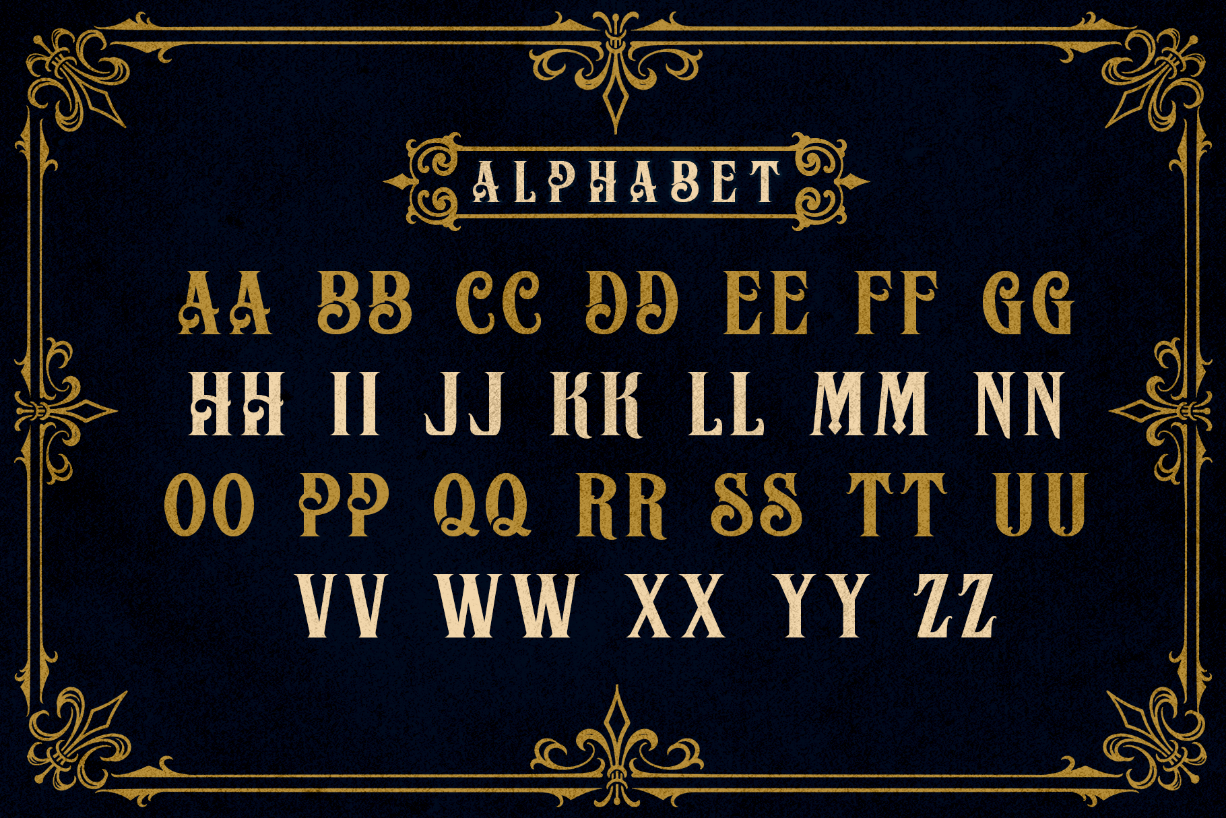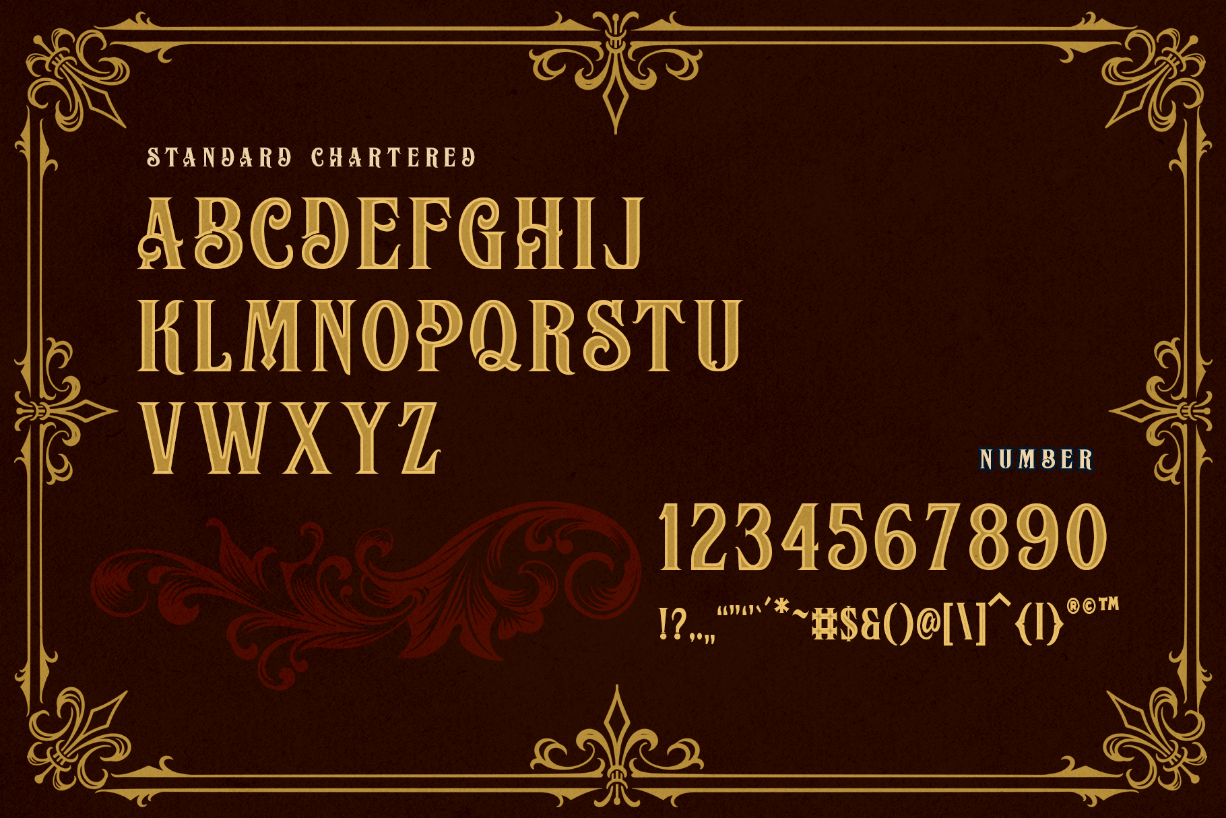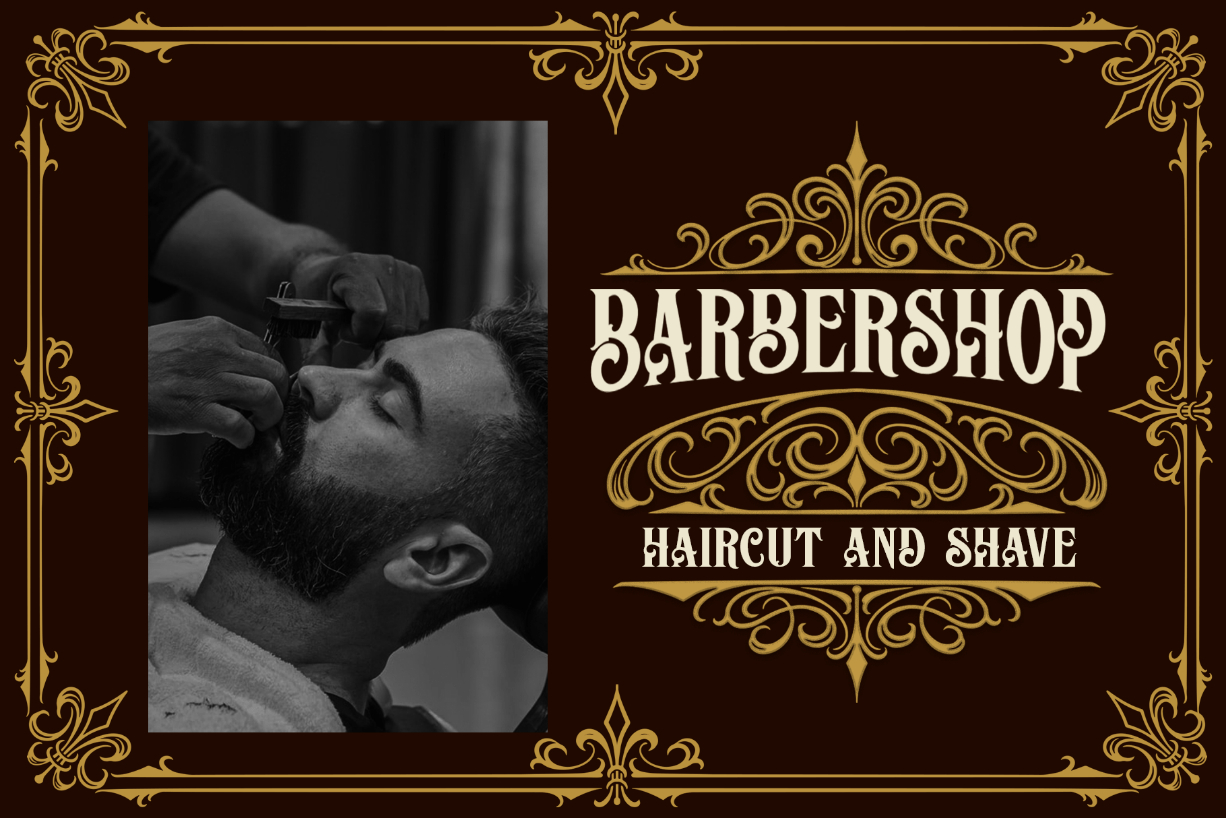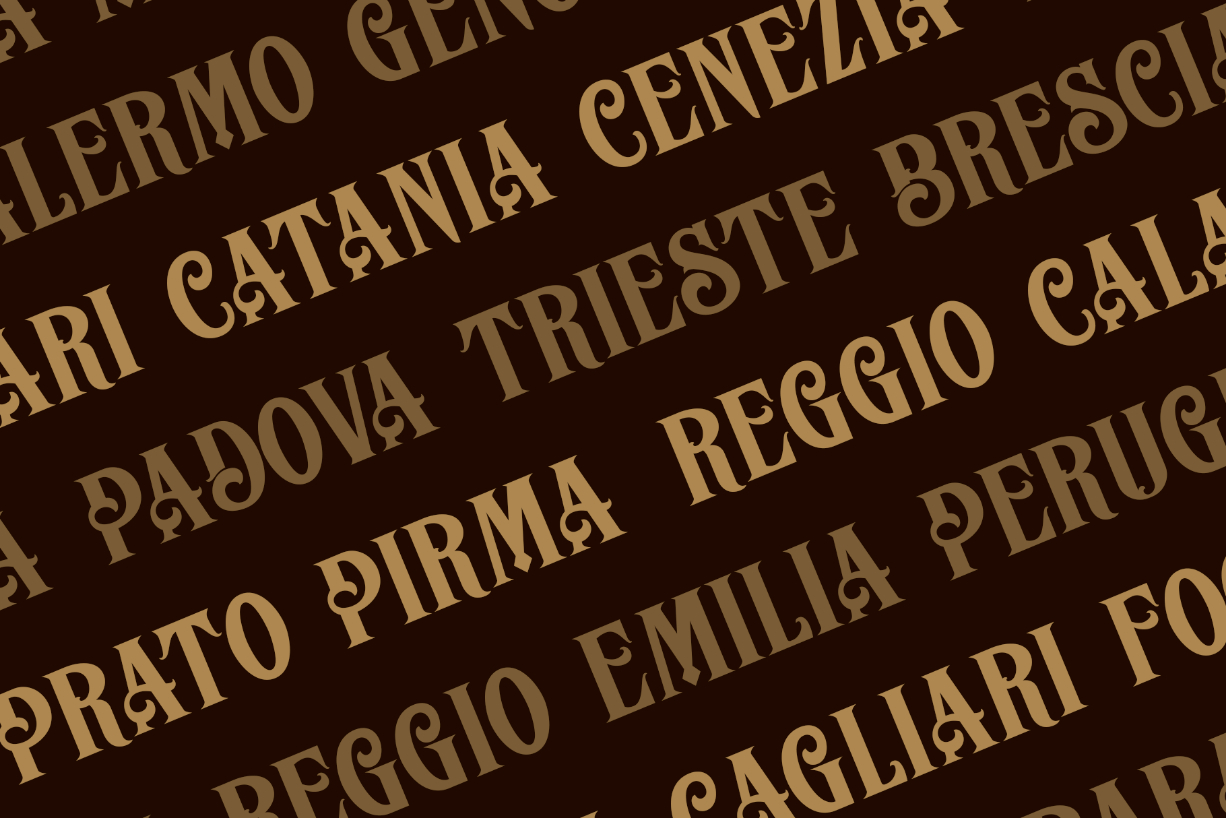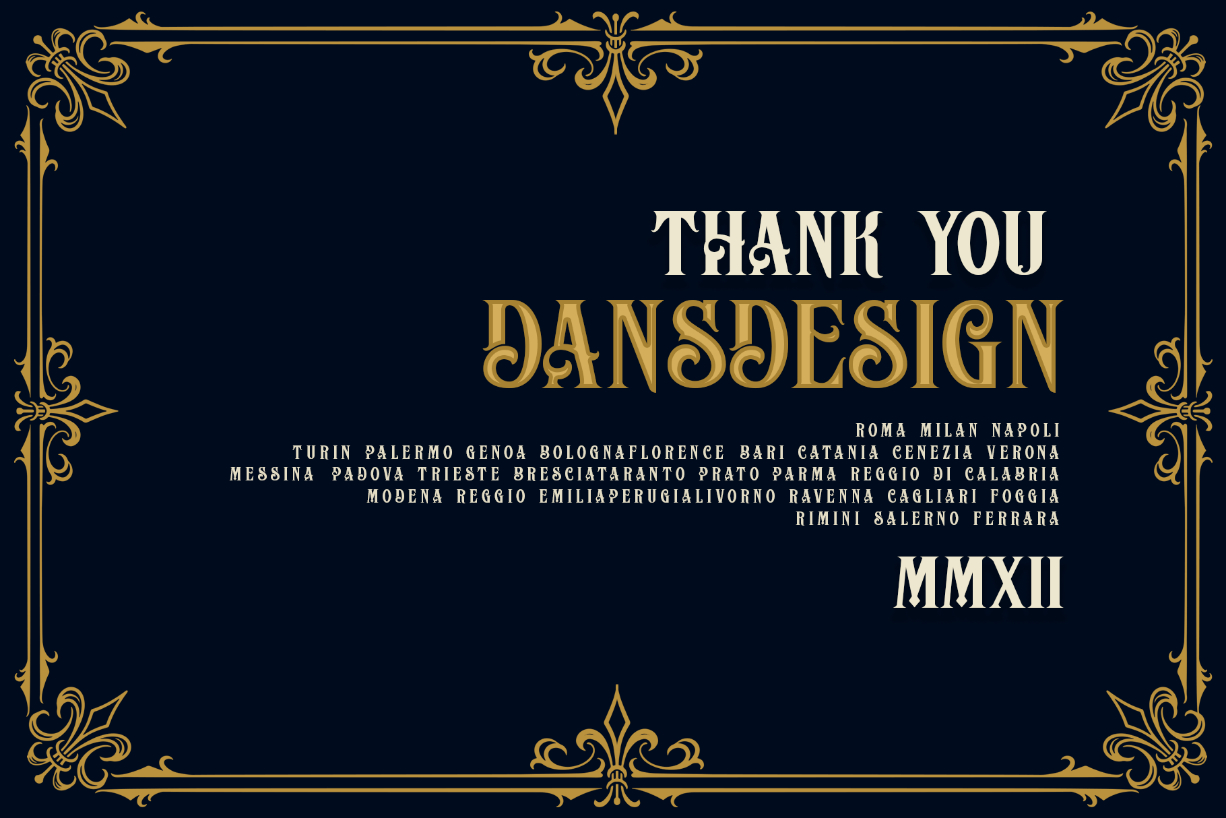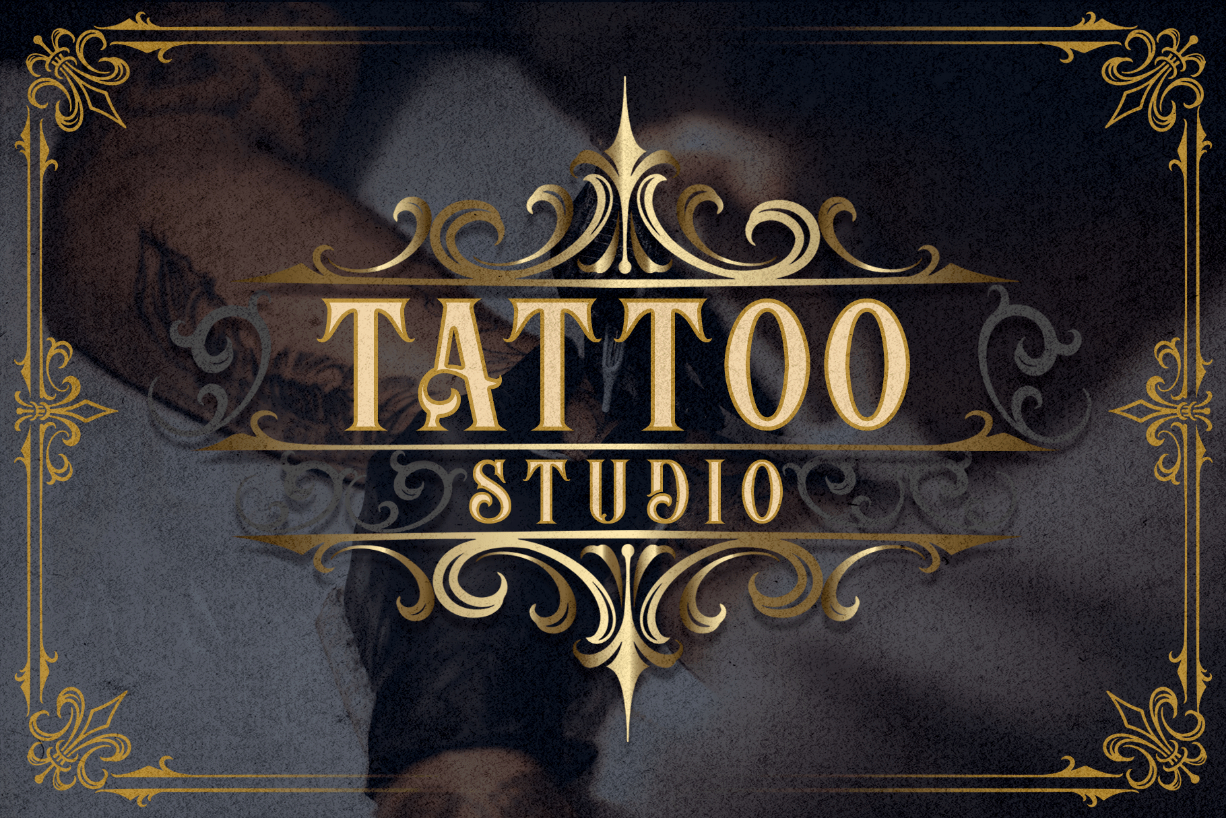
Bashope Font
About Bashope Font
Bashope is a splendid, vintage-style blackletter font. Use it for product packaging, branding, or other projects that need bold and daring typography!